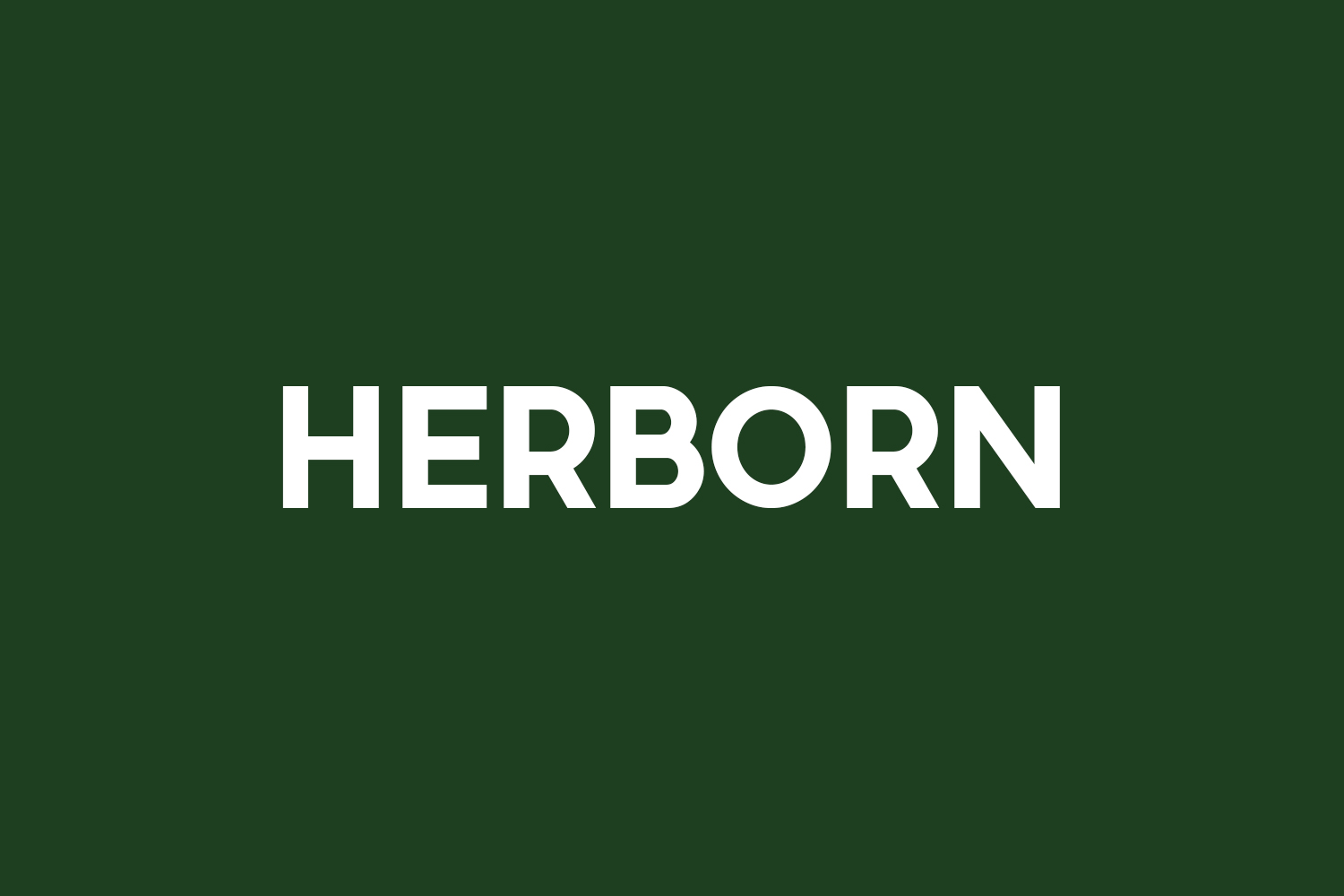
Herborn Free Font Herborn is bold stylish Sans Serif font that will fit any of Your designs. Use this font on posters, flyers and headlines. Herborn Free Font Herborn was designed by Vladimir Nikolic and is free for personal use only. Please purchase the full version for commercial use.
Designed by Vladimir Nikolic